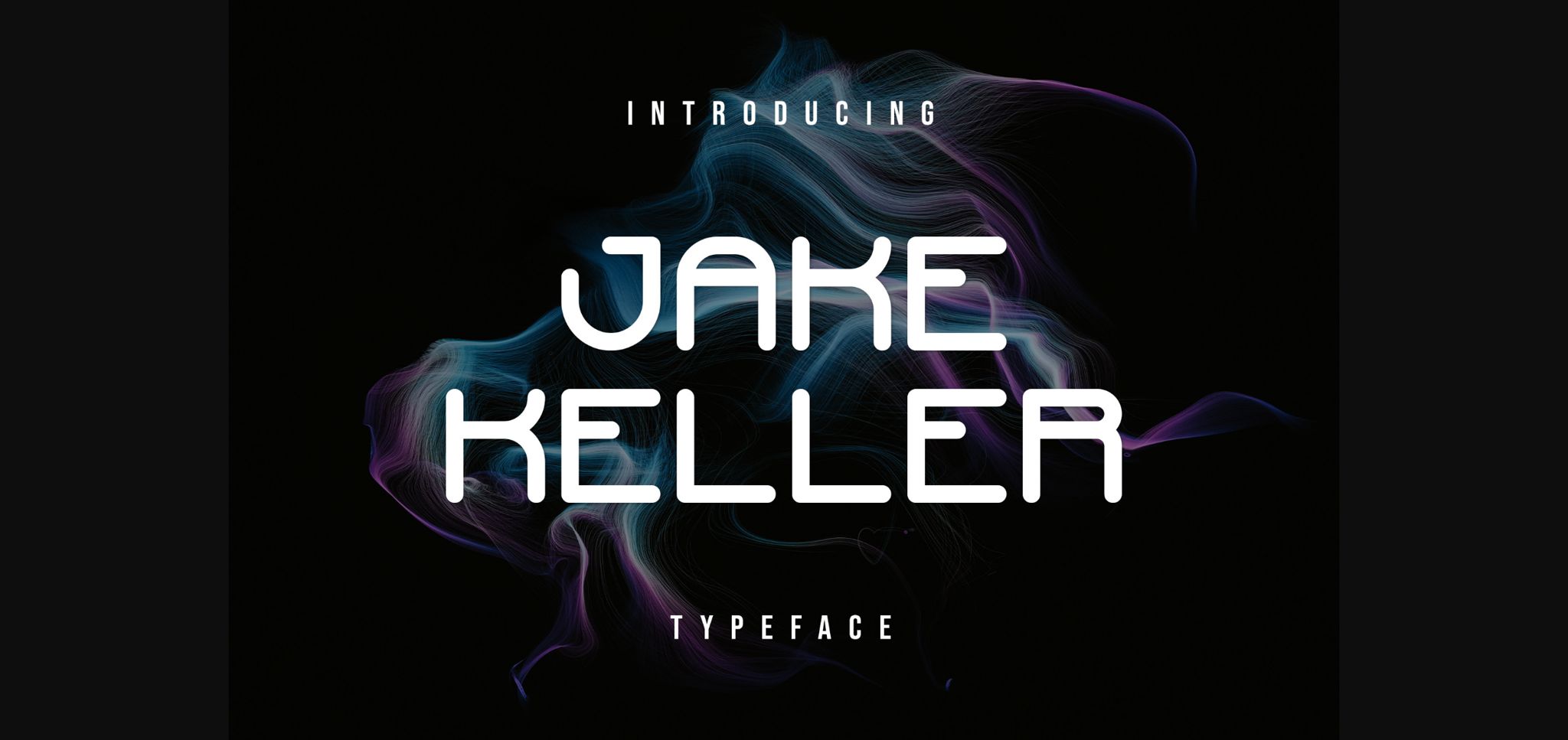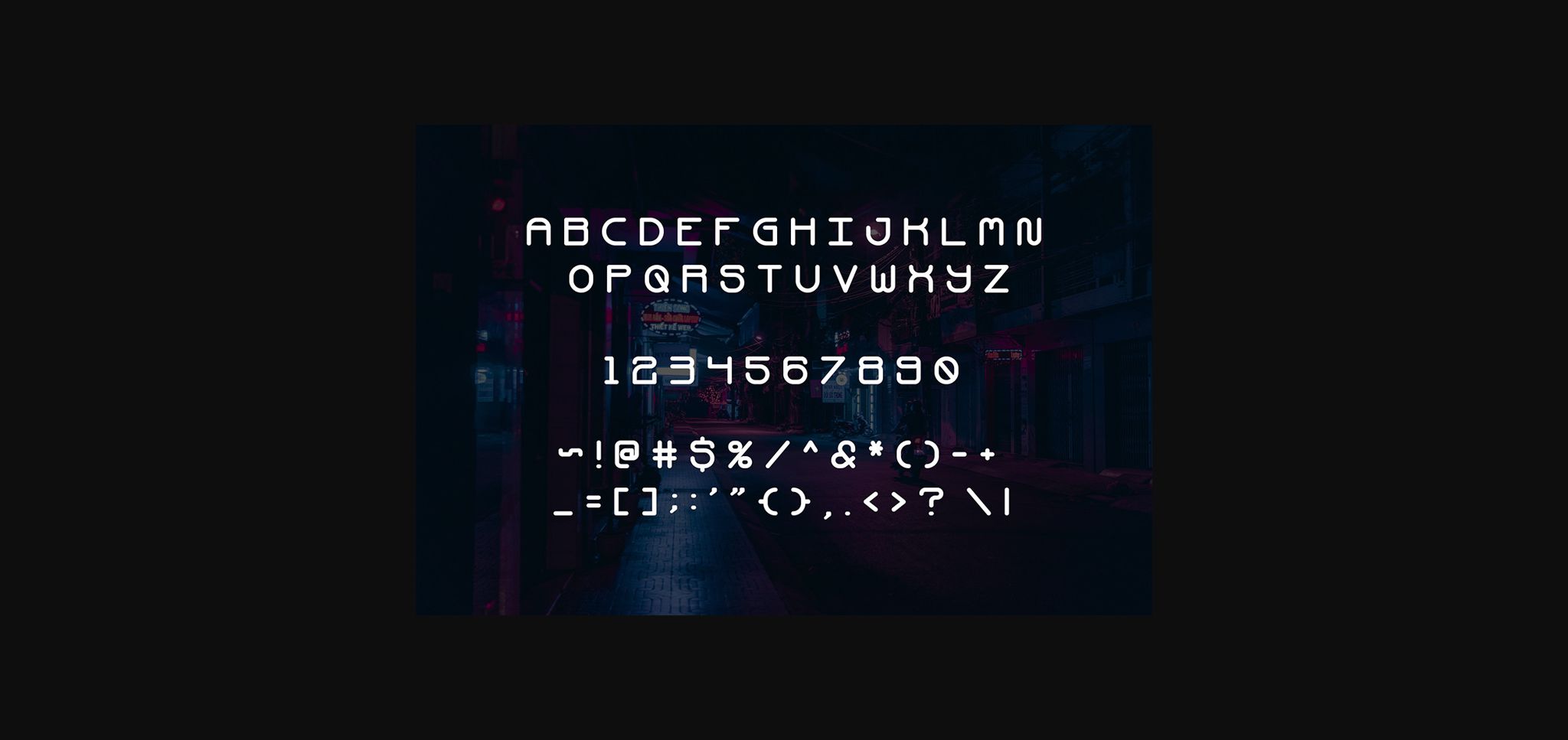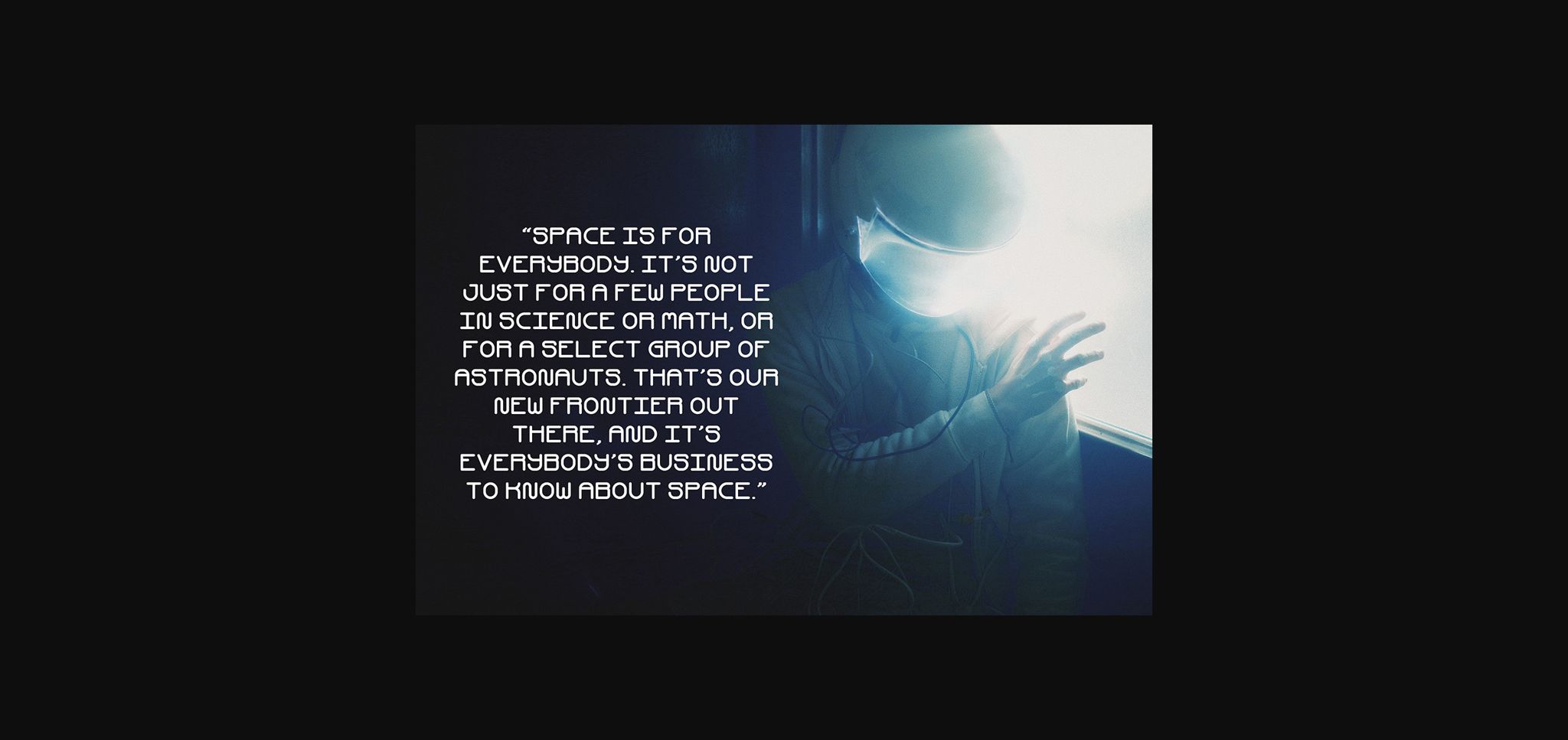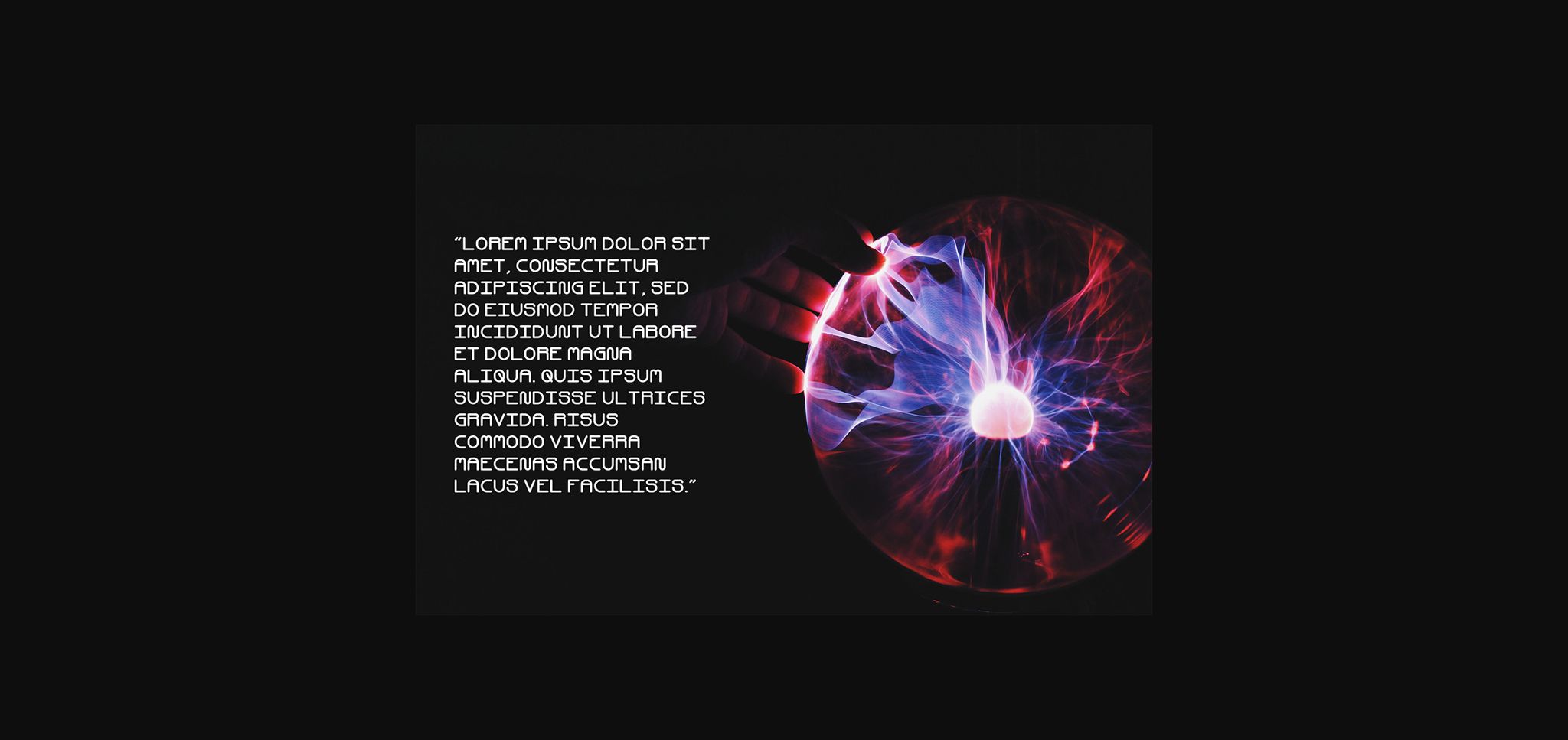
Jake Keller Awesome Typeface is a modern font that we designed with original touch for your needs.
This cool font is complete with Uppercase, Lowercase, and Numeric & symbols. This very strong and sharp font is perfect for titles, typography, posters, magazines, brochures, packaging, Websites, and much more for your design needs, making your designs cooler.